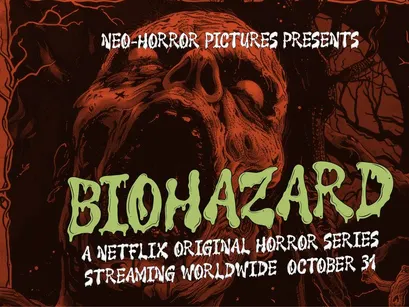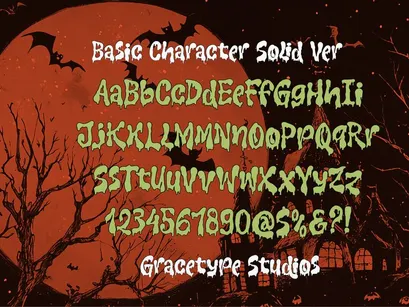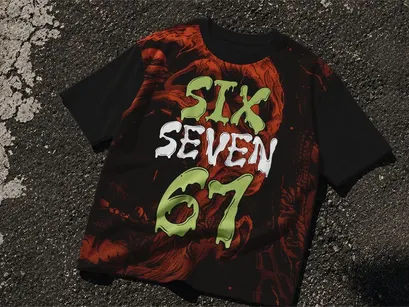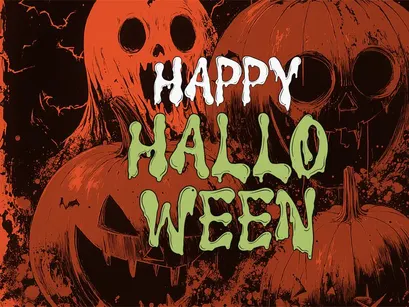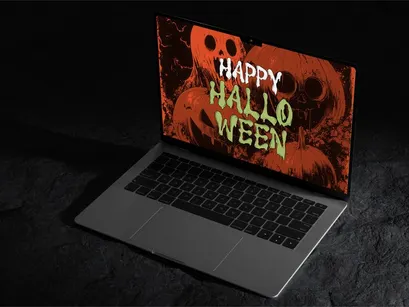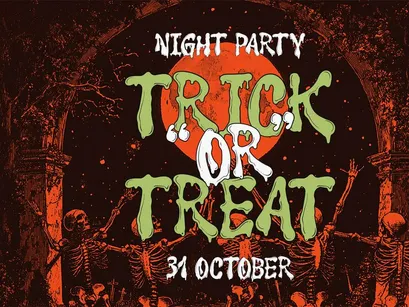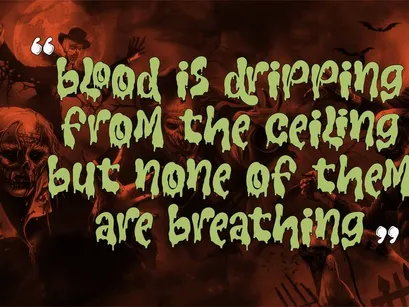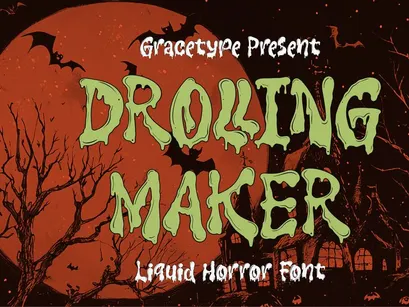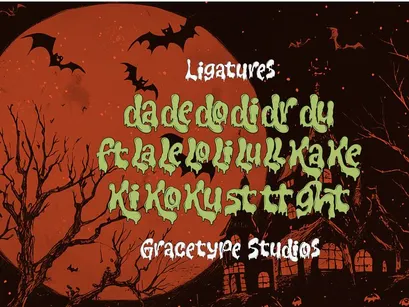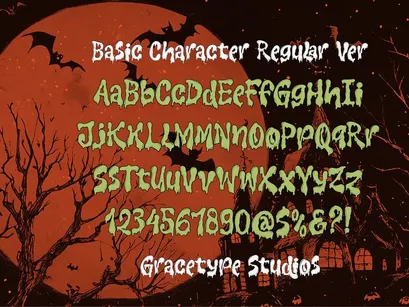
Drolling Maker | Liquid Horror Font, from Gracetypestudio, suitable for any projects such as: logos, branding projects, homeware designs, product packaging, mugs, quotes, posters, shopping bags, t-shirts, book covers, name card, invitation cards, greeting cards, label, photography, watermark, special events, and all your other lovely projects that need a Horror Font taste.